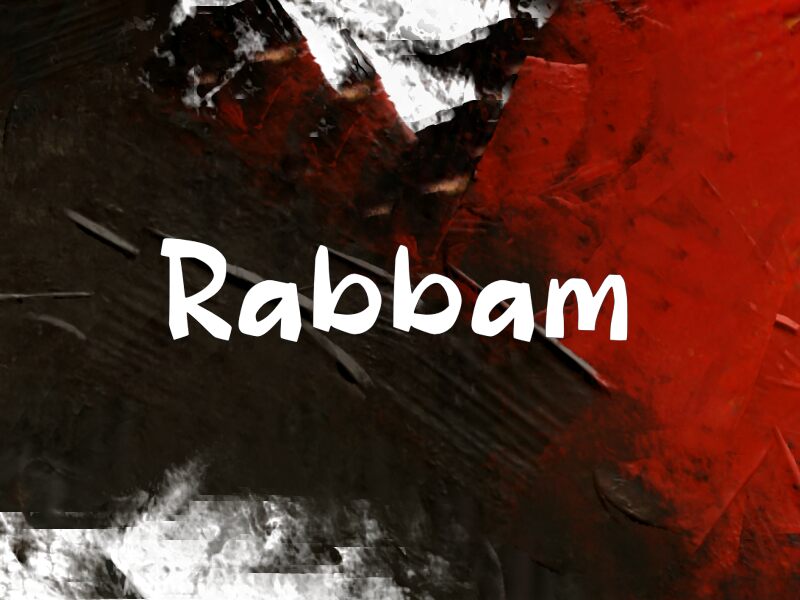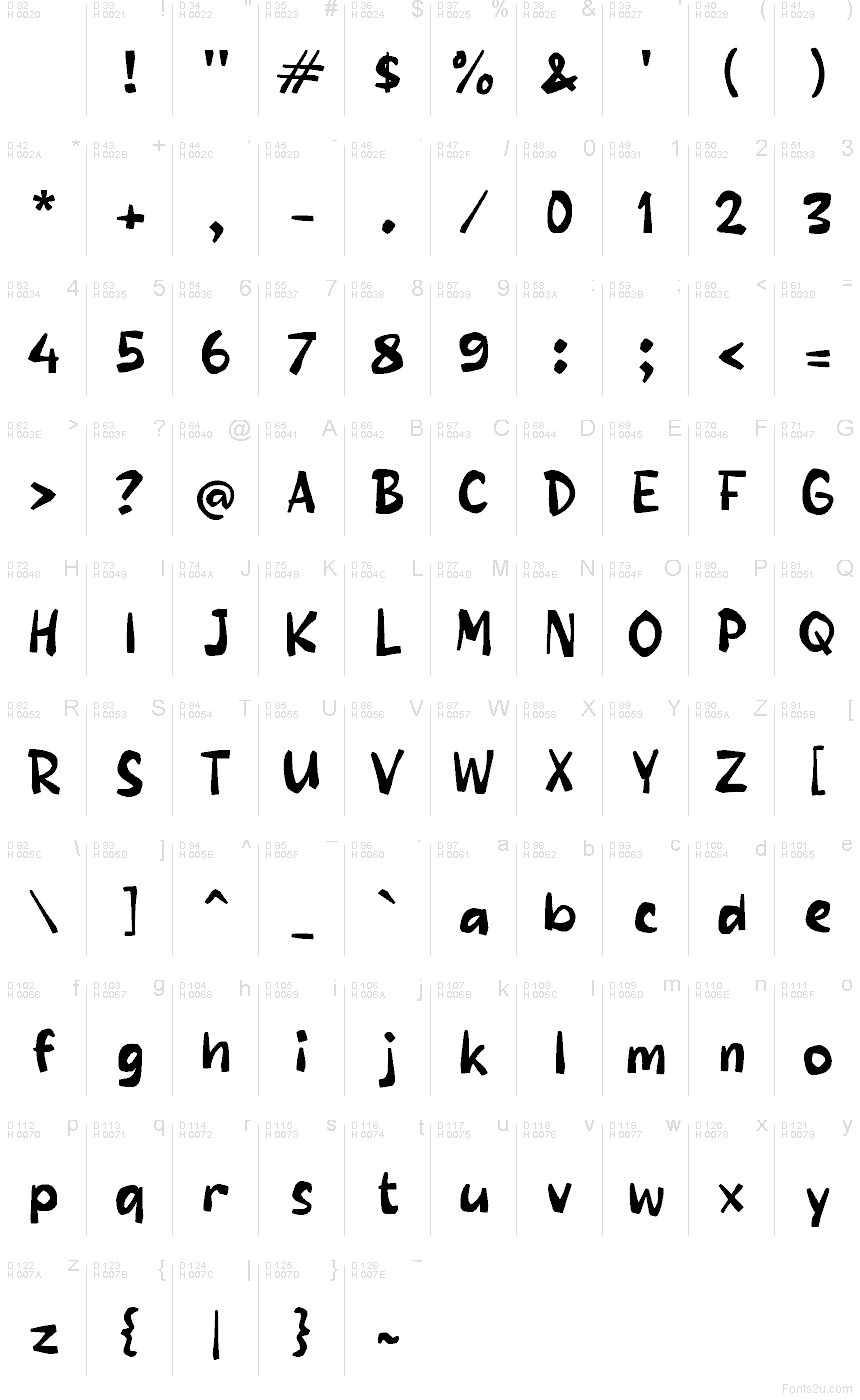
Rabbam
Rabbam font by wepfont.com is a free cartoon display typeface with a loose, inky energy that feels like it was drawn straight from a marker pen. The letters wobble and sway just enough to feel playful, while their bold, filled-in strokes stay legible at a glance. It has that messy-but-intentional vibe, like a quick sketch on notebook paper that somehow steals the whole page.
Using Rabbam, you can give instant personality to kids’ book covers, comic titles, YouTube thumbnails, casual game menus, classroom posters, and birthday invitations. This free font shines when it’s big and loud, letting the chunky curves and uneven rhythm do the talking. For longer text, pair Rabbam with a simple sans serif in smaller sizes so the headline keeps all the fun without sacrificing clarity.